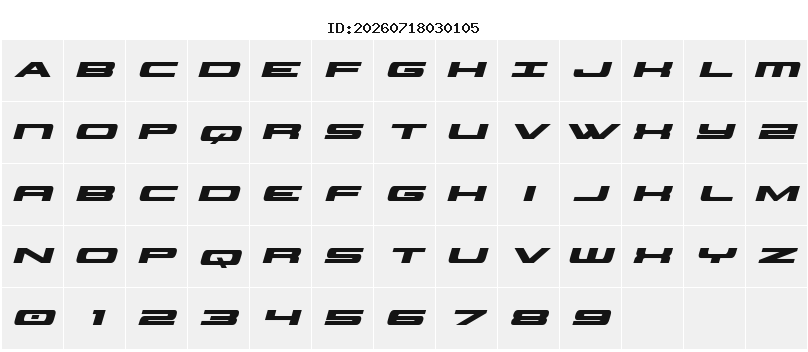
Classic Cobra Bold Italic Preview
• Font Name: Classic Cobra Bold Italic
• Full Font Name: Classic Cobra Bold Italic
About Classic Cobra Bold Italic.ttf
Classic Cobra Bold Italic.ttf is a modern, elegant sans-serif font designed for ultimate readability and visual harmony. Perfect for branding, headlines, web design, and print materials.